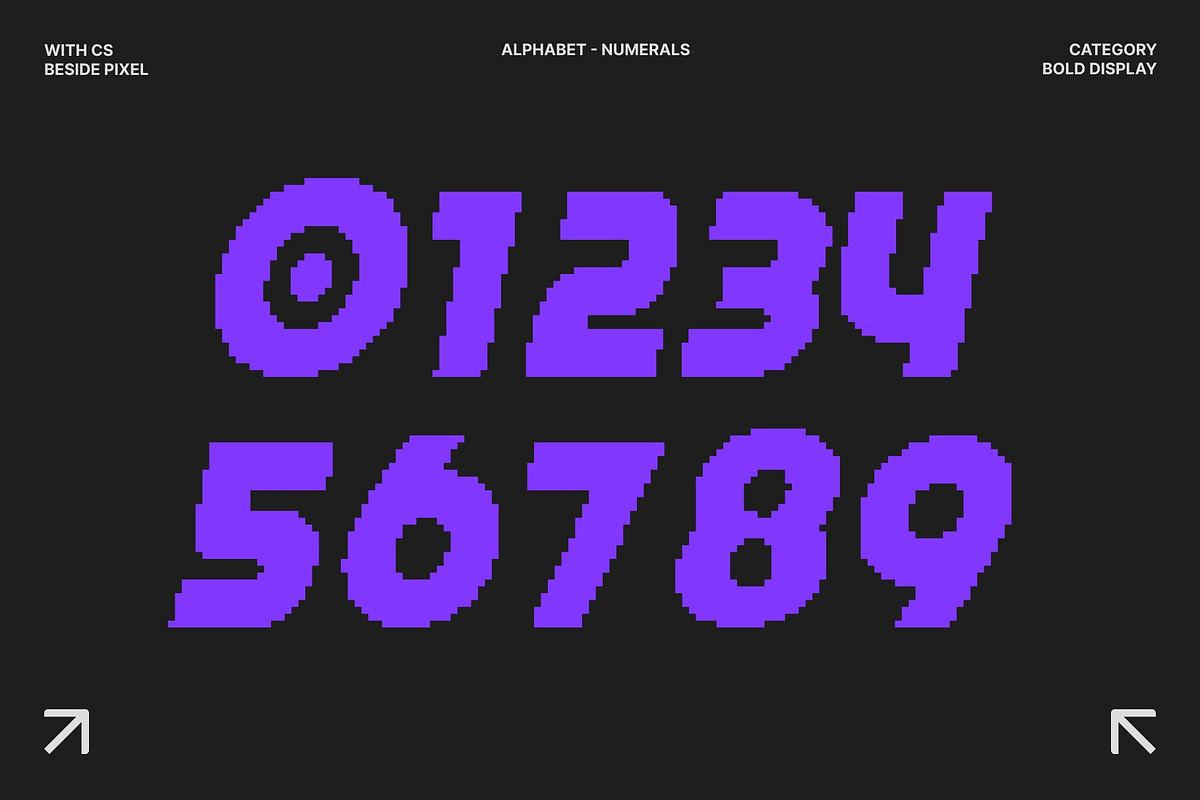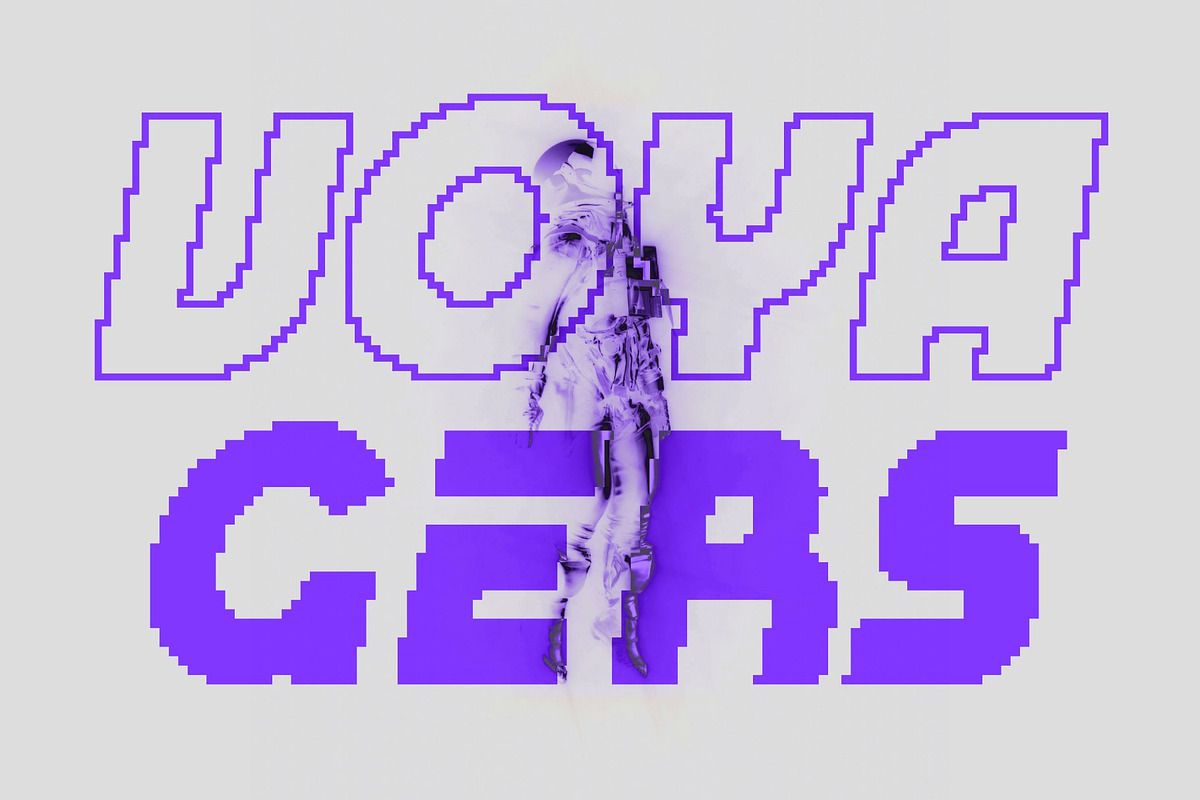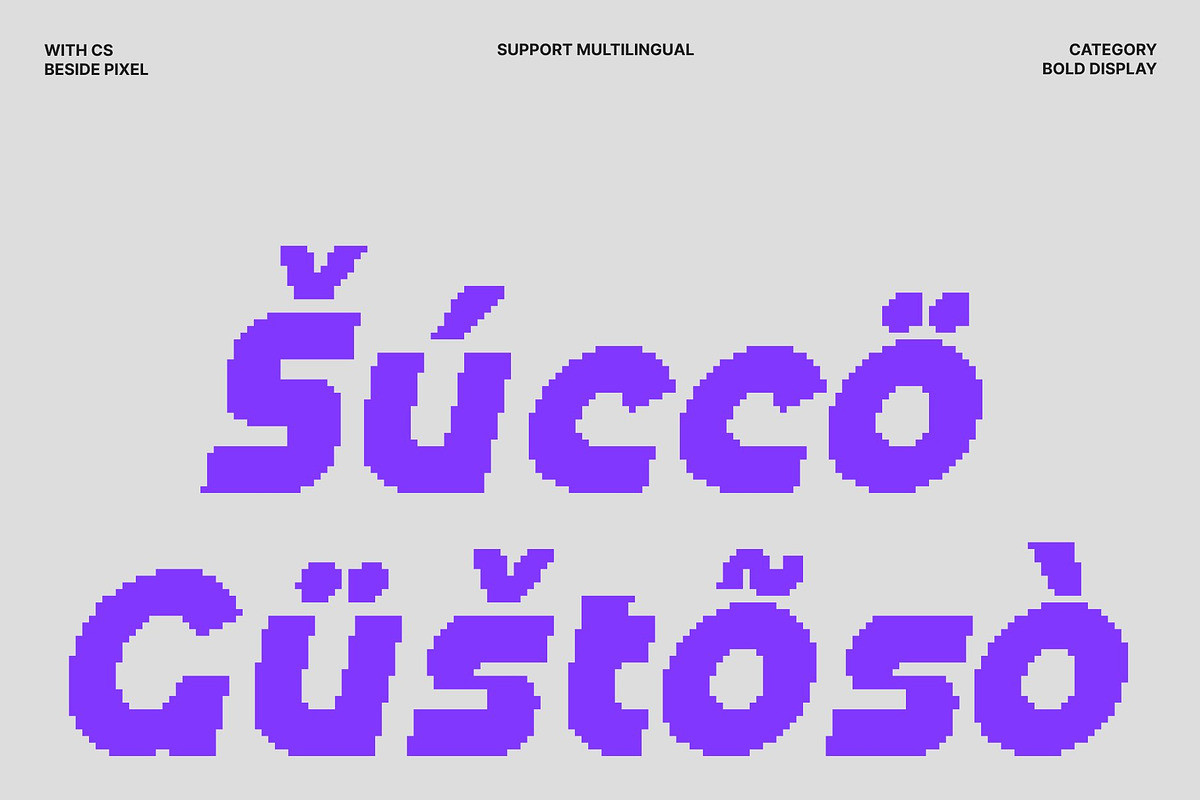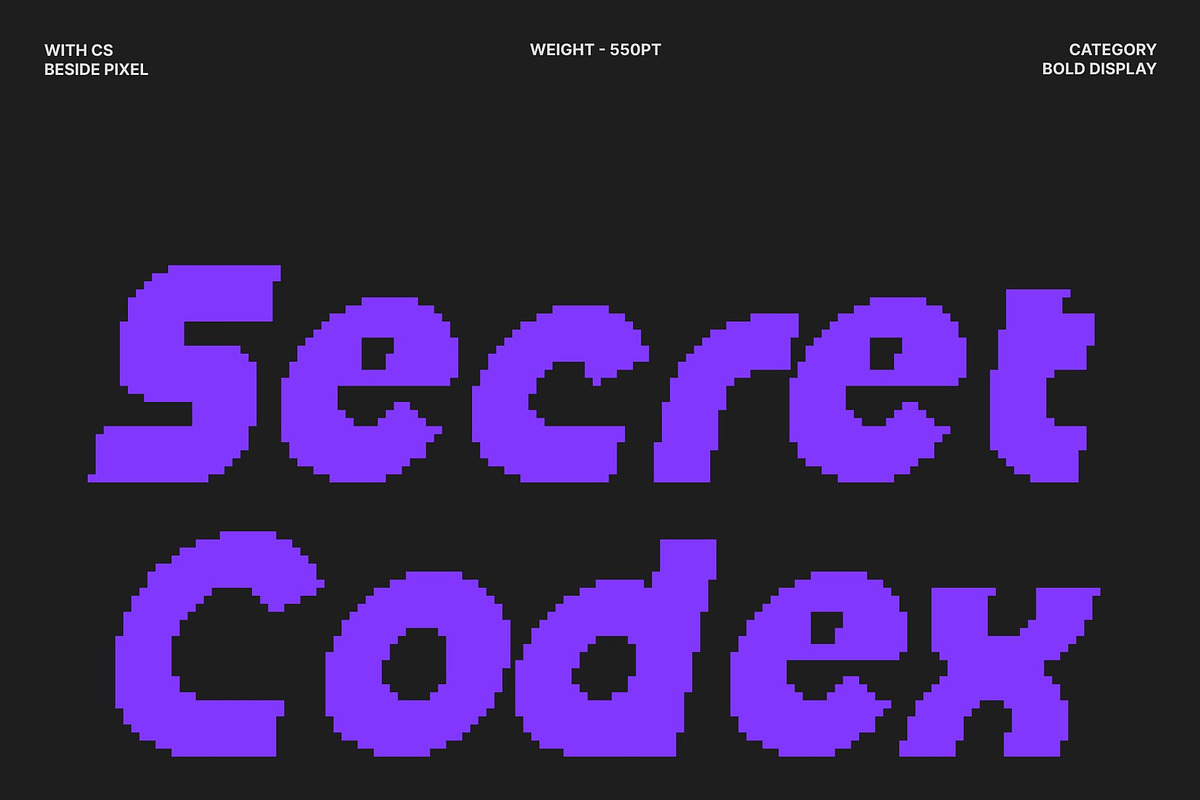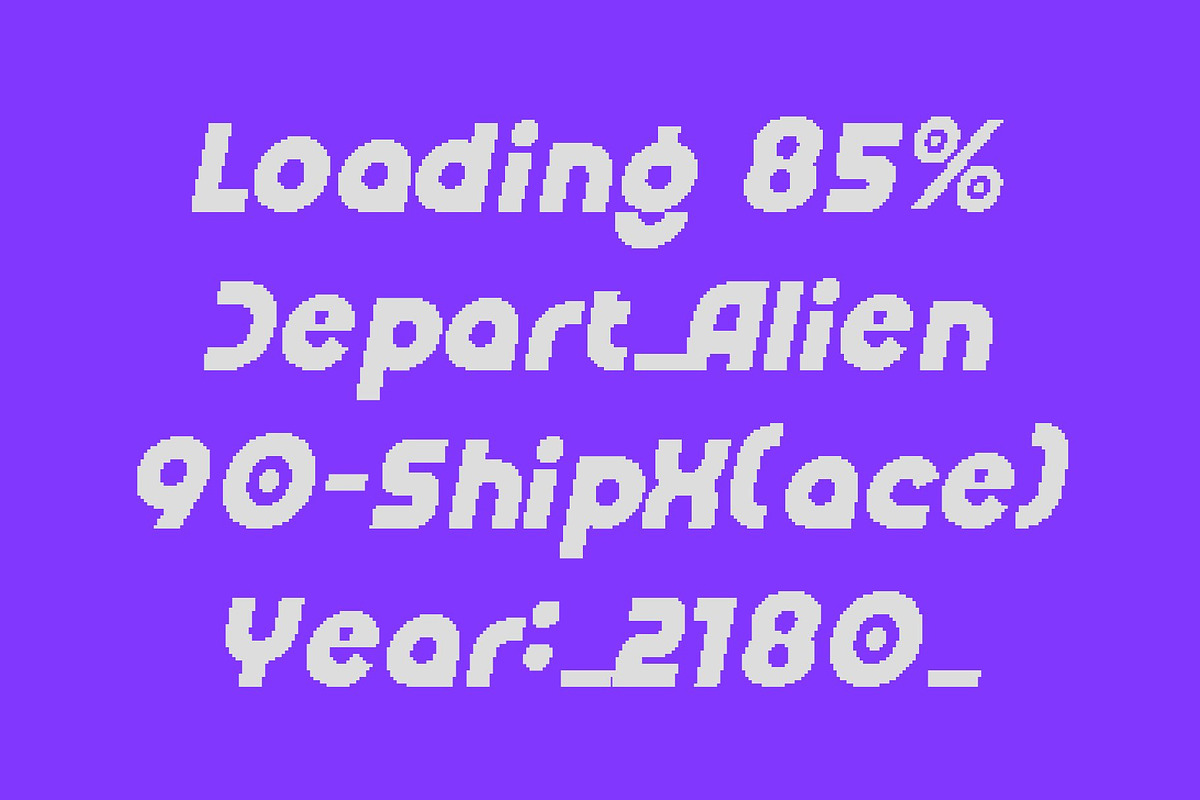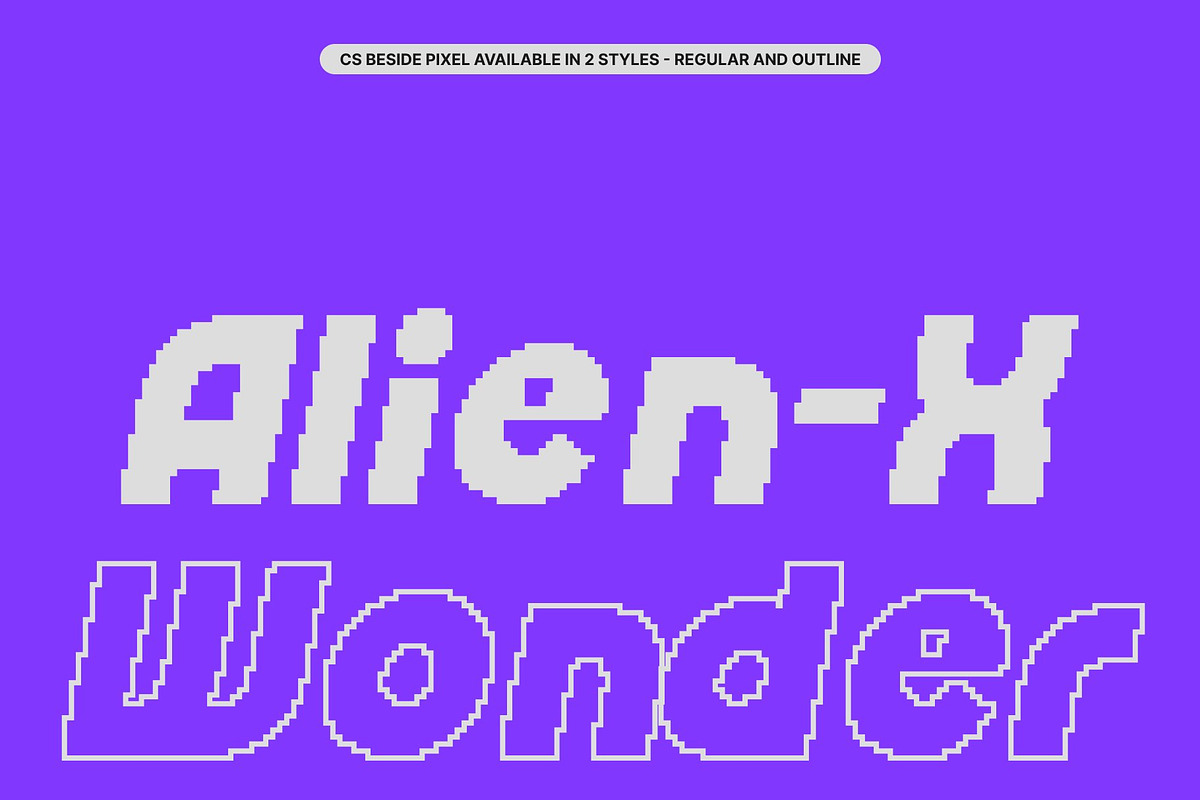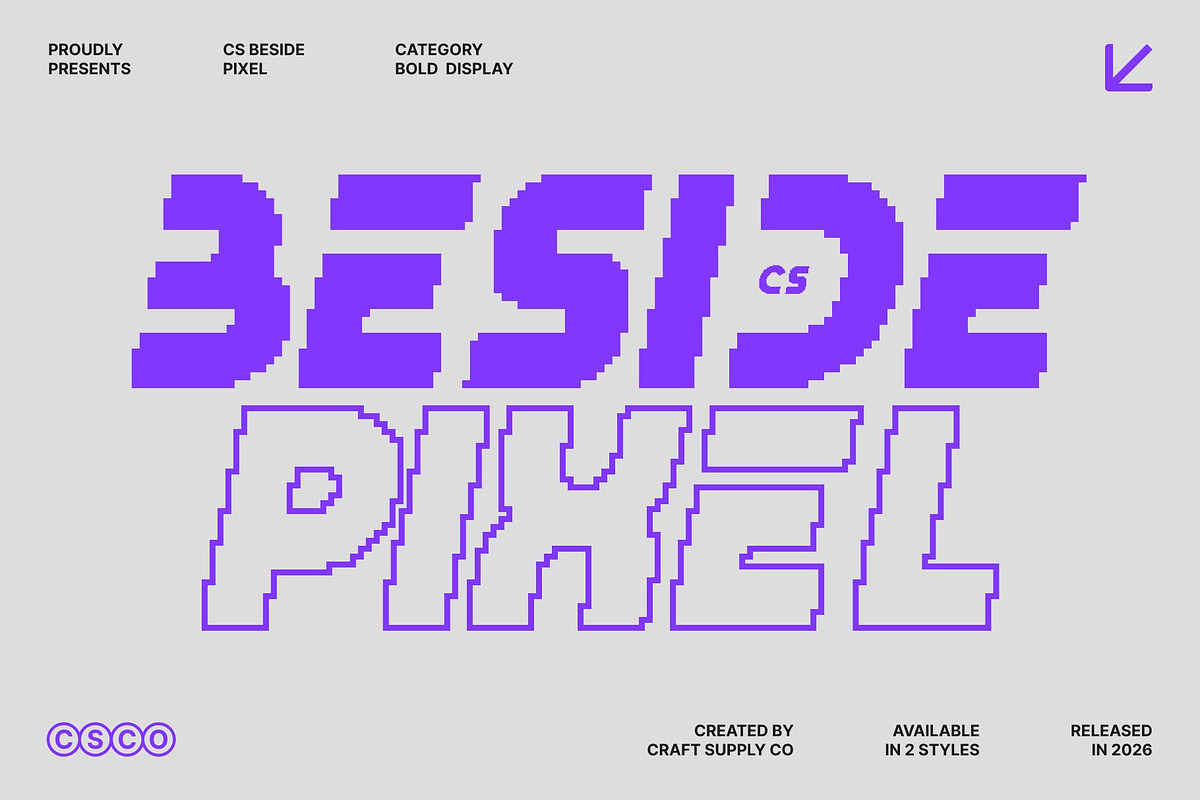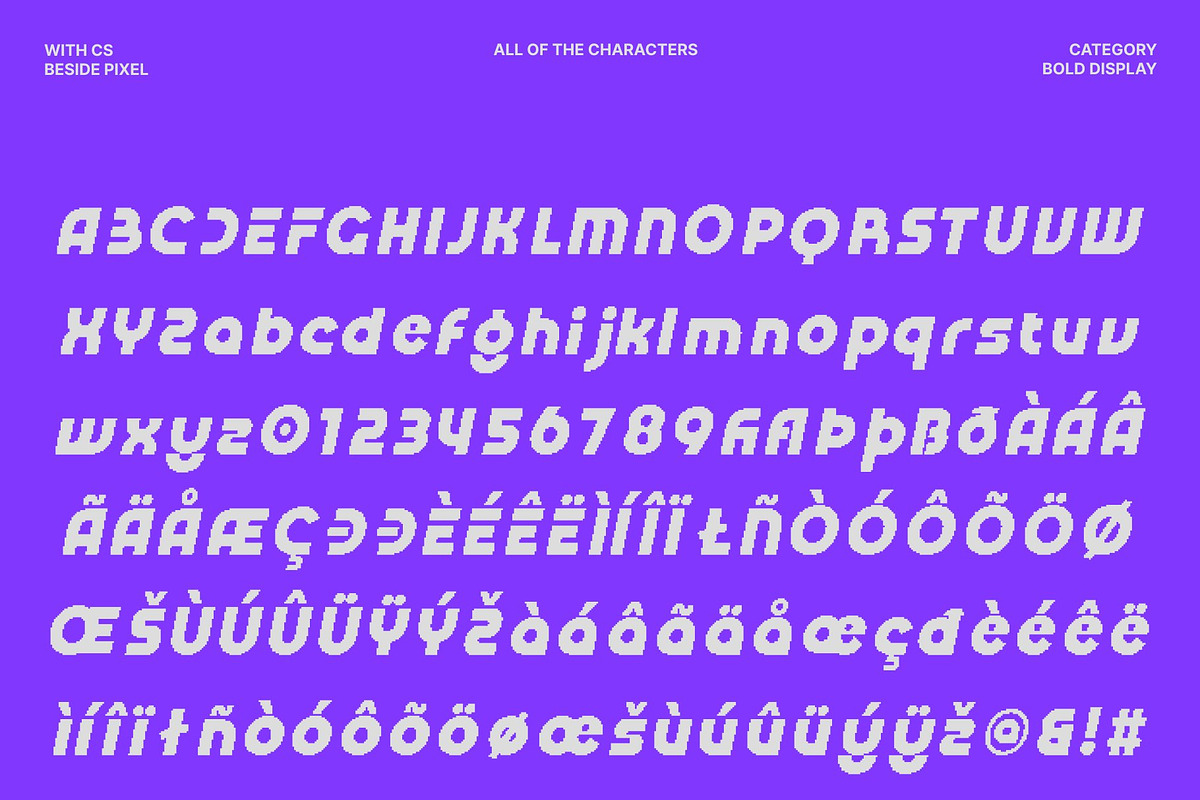
CS Beside Pixel
CS Beside Pixel – Bold Display Font with Futuristic Digital Impact
Powerful Presence in Pixel Display Form This is a bold display font designed to command attention through strong, impactful letterforms built in a pixel style. Its solid structure and heavy weight create an immediate visual punch, while the pixel construction adds a distinctive digital and retro-futuristic character. This combination makes the font feel powerful, energetic, and visually striking perfect for designs that must stand out instantly.
Experimental Shapes with Futuristic Attitude The experimental nature of this font comes from its unconventional geometry and sharp digital forms. Each letter feels futuristic and daring, inspired by old-school digital screens, sci-fi interfaces, and modern experimental typography. The pixel styling reinforces a high-tech, 8-bit-inspired aesthetic, giving the font a bold edge that feels both nostalgic and forward-looking at the same time.
High-Impact Readability for Bold Messages With its substantial weight and clear pixel structure, this font delivers excellent visibility, especially at large sizes. Headlines, posters, and titles remain strong and legible, even from a distance. The blocky digital forms ensure clarity while adding a unique personality that feels modern, confident, and expressive.
Perfect for Futuristic, Digital, and Creative Projects This font is ideal for posters, branding, logos, album covers, gaming visuals, and experimental digital designs. Its bold, futuristic pixel style makes it perfect for projects that demand innovation, creativity, and a striking visual identity that cannot be ignored.